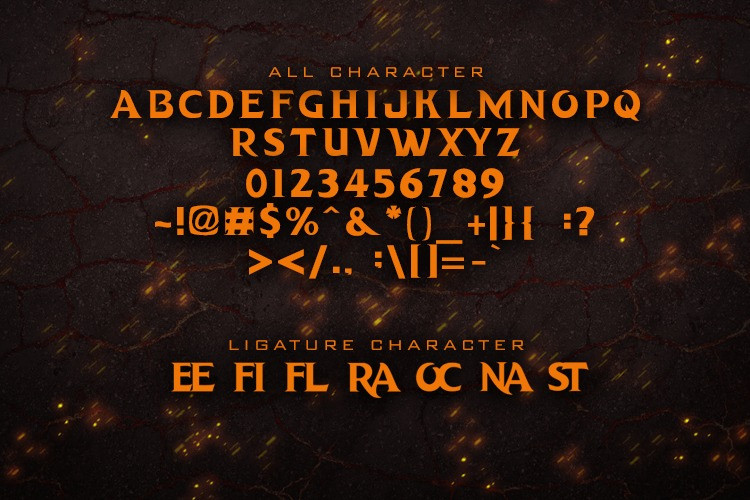
Dragon Hunter Font
Dragon Hunter Display Font is a unique serif font designed specifically for epic films and games. This font features strong and bold letters, with a touch of medieval elements that give a sense of grandeur and power. The font is perfect for any project with a colossal theme, whether it be a blockbuster movie or a fantasy-themed video game. With its unique design, Dragon Hunter Font will add a touch of awe-inspiring creativity to any project it’s used in.